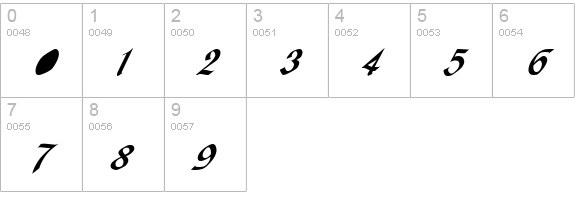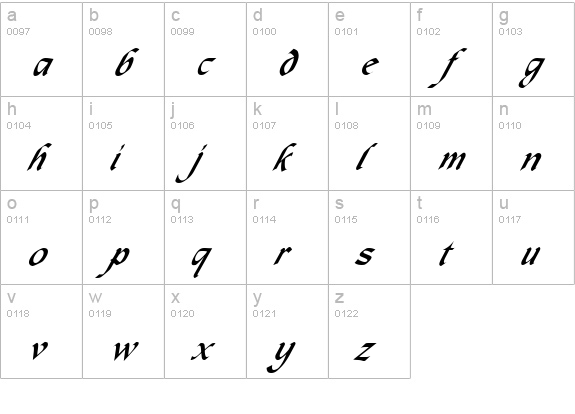
MacHumaine Italic Font Details
MacHumaine Italic is a distinctive, italic variant in the MacHumaine typeface family \xE2\x80\x94 well suited to design and typography projects.
MacHumaine Italic is a strikingly elegant font that effortlessly combines classic sophistication with a touch of modern flair. Its timeless and graceful letterforms exude a sense of refined beauty, making it the perfect choice for any project that requires a touch of elegance and charm. With its delicate curves and subtle slant, MacHumaine Italic effortlessly captures attention and adds a touch of sophistication to any design. Whether used for invitations, branding, packaging, or editorial purposes, this font brings a sense of refinement and style that is hard to replicate. What sets MacHumaine Italic apart is not just its exquisite design, but also its availability as a free download at FontsMarket.com. This means that designers, creatives, and enthusiasts alike can easily access and utilize this stunning font without any cost. It allows anyone to add a touch of elegance and grace to their projects, without compromising on quality or breaking the bank. The versatility of MacHumaine Italic is another feature worth highlighting. Whether used in large headlines or small body texts, this font remains legible and visually appealing. Its well-balanced proportions and carefully crafted details ensure that every character is harmoniously aligned, creating a seamless and coherent typographic experience. Furthermore, MacHumaine Italic offers a wide range of language support, allowing designers from all over the world to seamlessly integrate this font into their projects. Its extensive character set includes diacritics, punctuation marks, and various symbols, ensuring that it can be used in a multitude of contexts and languages. In summary, MacHumaine Italic is a font that effortlessly combines elegance, sophistication, and modernity. With its striking design, extensive language support, and the fact that it is freely available to download at FontsMarket.com, this font is a valuable addition to any designer's toolkit. It invites creativity and allows for the creation of visually stunning and refined designs, all while being accessible to everyone.